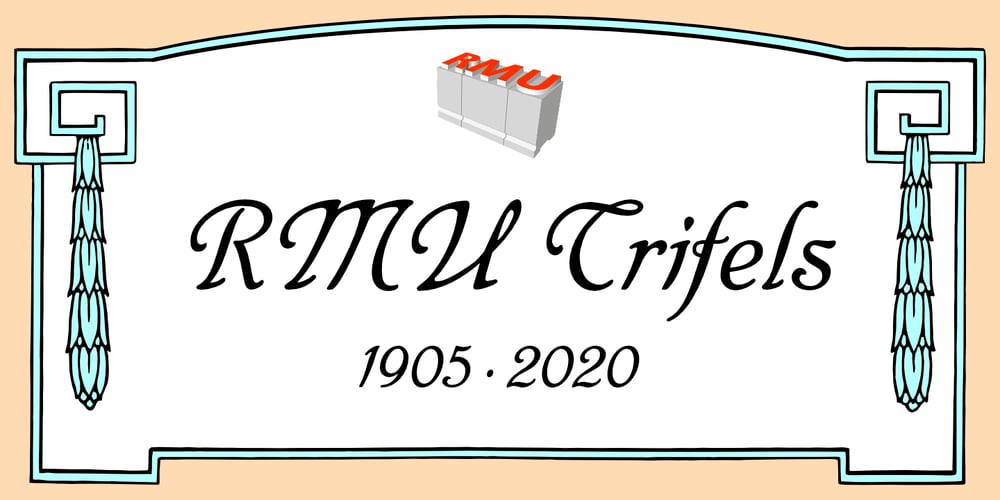
RMU Trifels
RMU Trifels font
RMU Trifels Font Family was designed by Heinrich Wieynck, Ralph M. Unger and published by RMU. RMU Trifels contains 1 styles and family package options. RMU Trifels is a revival of Heinrich Wieynck’s great design which was released by Bauer in 1905. This beautiful Art Nouveau font comes with a long s and a historical form of the letter H.Border and adorning elements were added which you can reach by typing [alt] + P and [alt] + p.